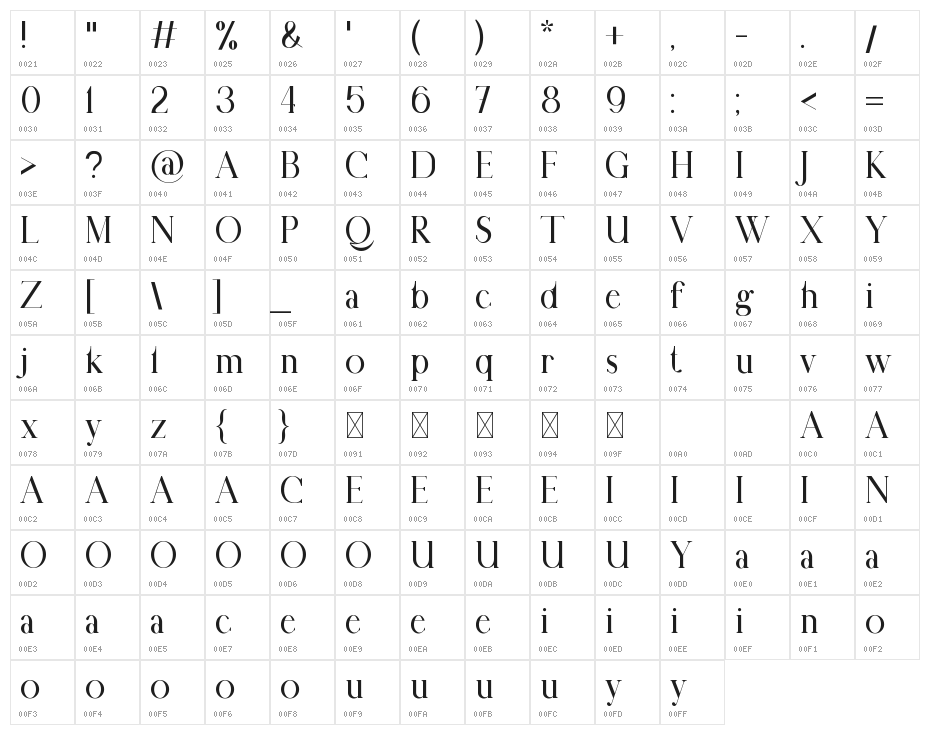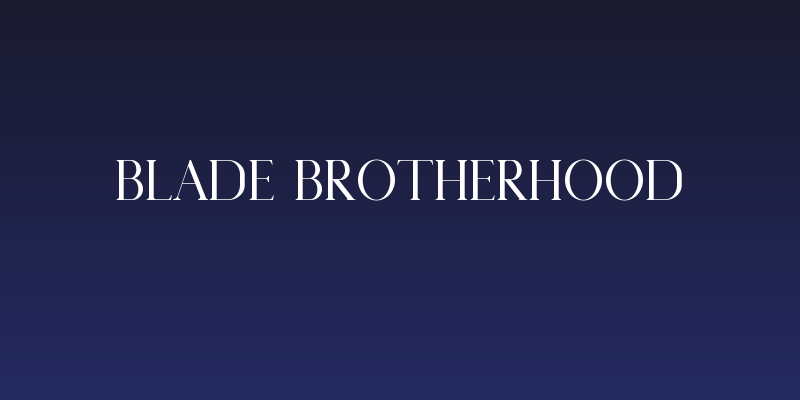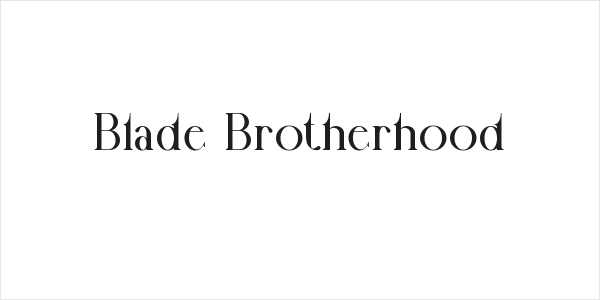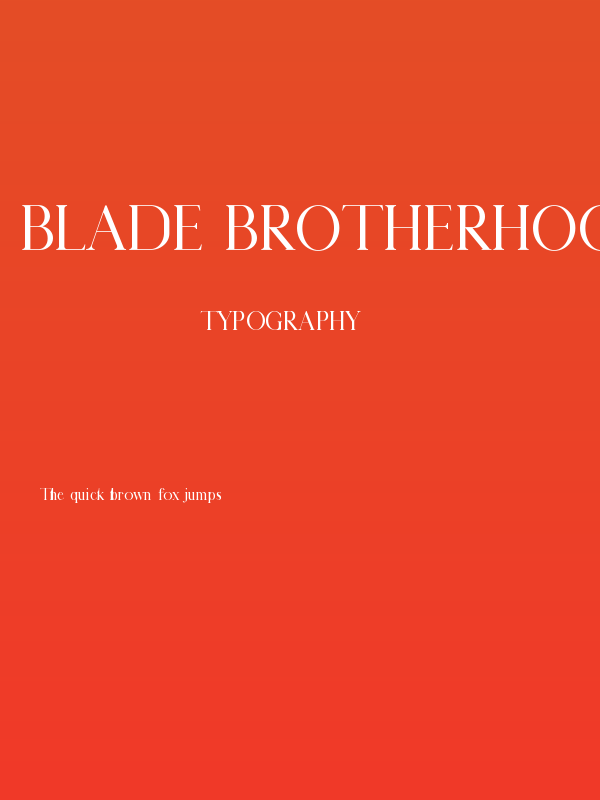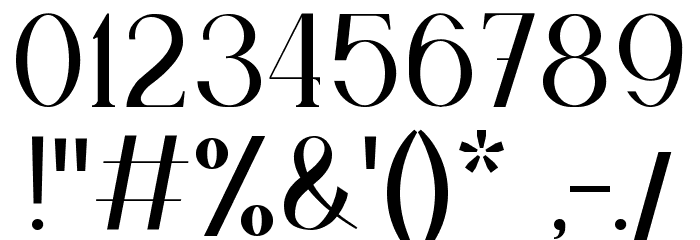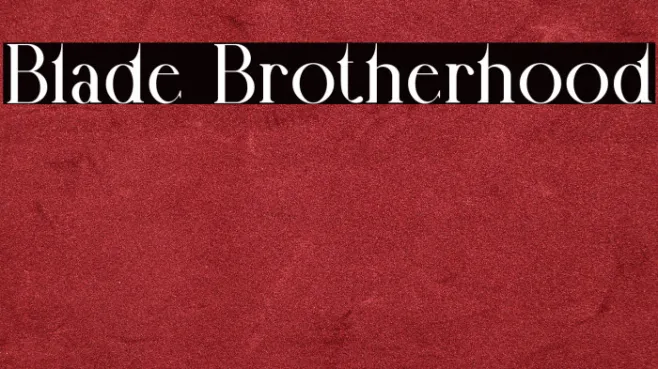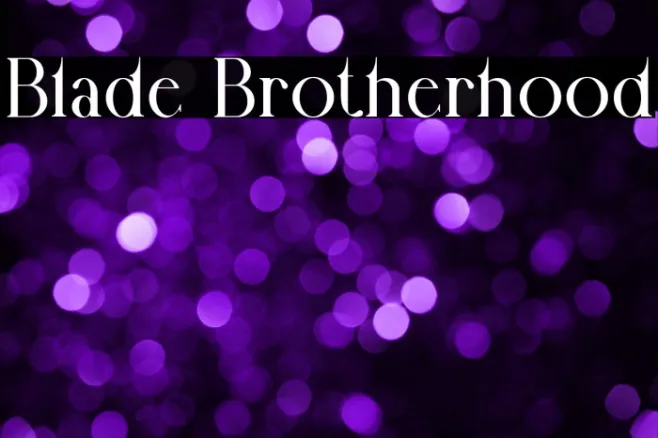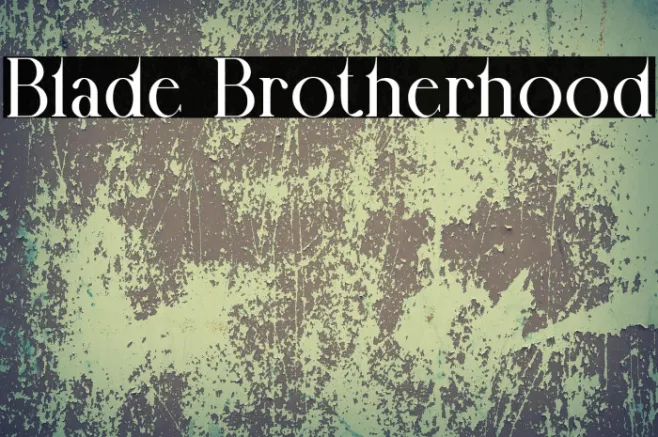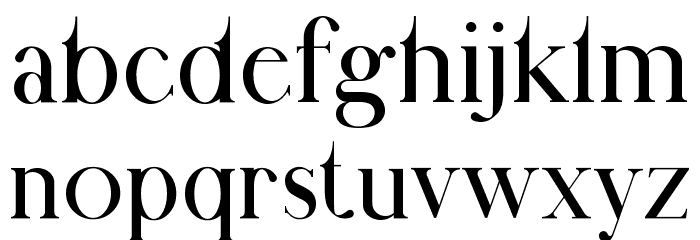
Blade Brotherhood Font
Blade Brotherhood Description
This font features a sophisticated and elegant serif design, characterized by its sharp, pointed serifs and high contrast between thick and thin strokes. The uppercase letters exhibit a classic and formal appearance, while the lowercase letters maintain a graceful and refined style. The numerals are distinct and clear, ensuring readability. Special characters are designed with the same attention to detail, enhancing the font's overall aesthetic. This typeface is suitable for projects that require a touch of elegance and sophistication.
| Proposed Projects | Ideal for luxury branding, editorial design, wedding invitations, and high-end product packaging. |